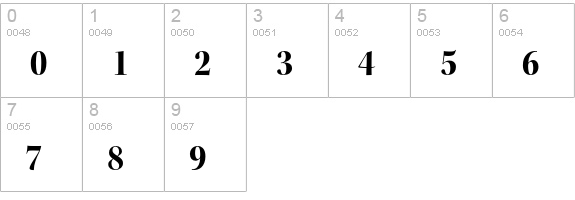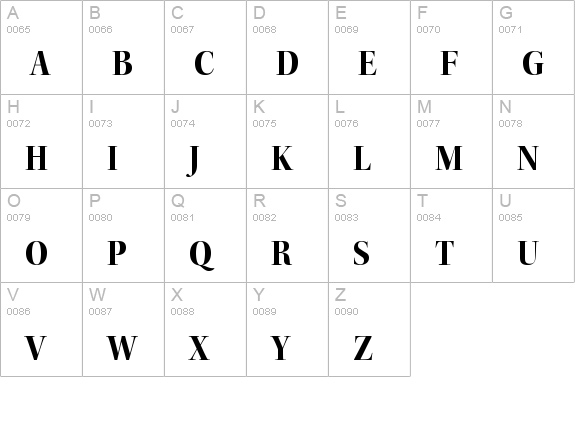
Kepler Std Bold Semicondensed Display is a strong, high-contrast variant in the Kepler typeface family \xE2\x80\x94 well suited to headlines, attention-grabbing titles, and strong calls-to-action.
Kepler Std Bold Semicondensed Display font is a stunning typeface that exudes elegance and sophistication. Its bold and condensed design captivates the attention, making it perfect for headlines, logos, and display purposes. The strong and powerful strokes of the characters give an impactful and commanding presence to any design. This font showcases a unique blend of modernity and classic charm. Its precise and well-defined letterforms, combined with a touch of contemporary flair, create a harmonious balance that is visually pleasing. The semi-condensed nature of the font allows for efficient space utilization, ensuring that your message stands out while maintaining a sleek and streamlined appearance. Kepler Std Bold Semicondensed Display font is versatile and adaptable, making it suitable for a wide range of projects. Whether you are designing a magazine layout, creating eye-catching advertisements, or crafting captivating digital content, this font will elevate your work to new heights. One of the most exciting aspects of this font is that it is freely available to download at FontsMarket.com. With just a few clicks, you can enhance your design projects with this exquisite typeface without any cost. This accessibility allows designers, both professional and amateur, to access high-quality resources without breaking the bank. In summary, Kepler Std Bold Semicondensed Display font is a visually striking typeface that effortlessly combines modernity and classic charm. Its bold and condensed design, along with its versatile nature, makes it an excellent choice for various design projects. Moreover, the fact that it is freely available to download at FontsMarket.com makes it an invaluable resource for designers seeking to create impactful and captivating designs.